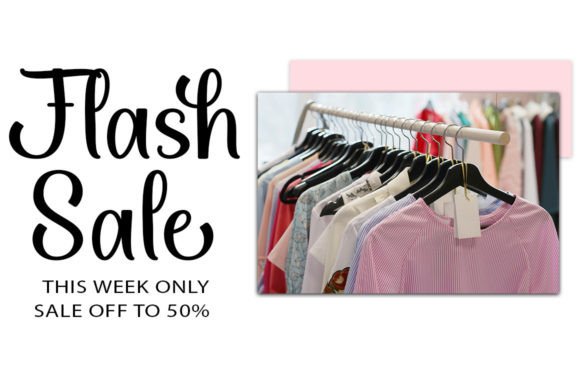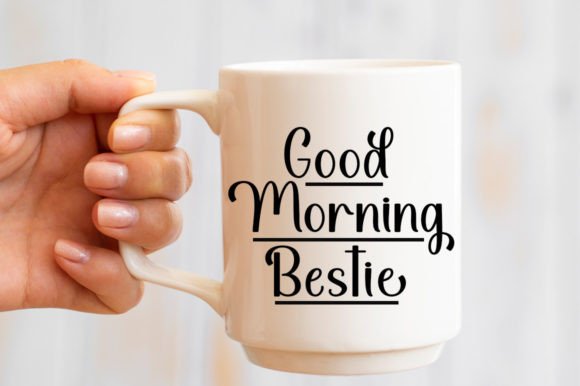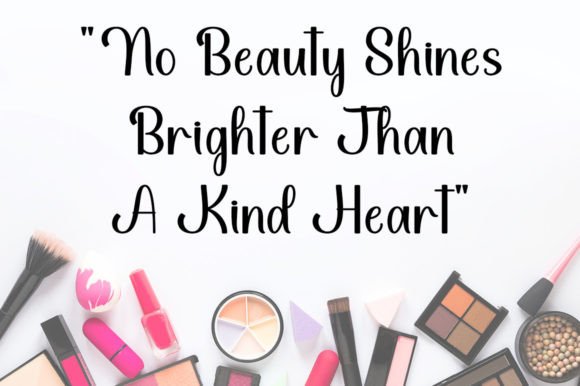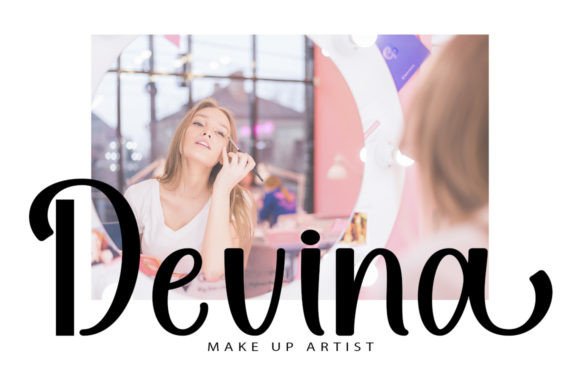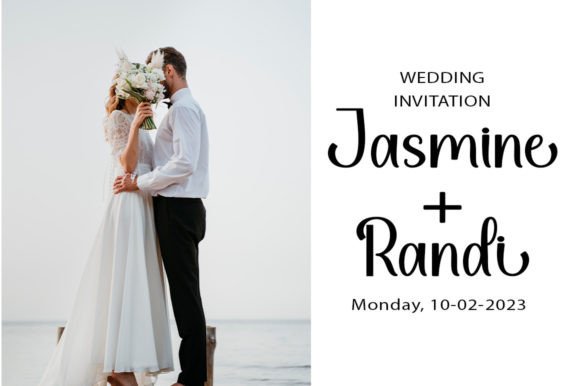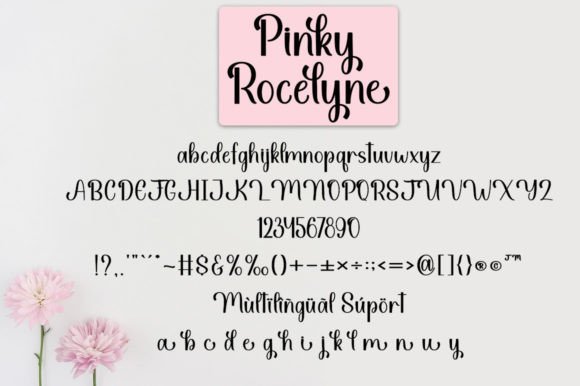
Introduction to Pinky Rocelyne Font
Pinky Rocelyne is a simple handwritten font.
This versatile font has a wide spectrum of applications ranging from greeting cards to headlines and is guaranteed to add a simple and natural feel to your next project Keep in mind that the font is PUA encoded, meaning that you can access all delightful glyphs and swashes effortlessly.
Key Features of Pinky Rocelyne Font